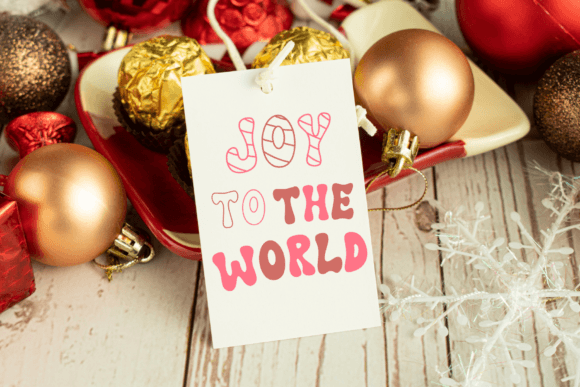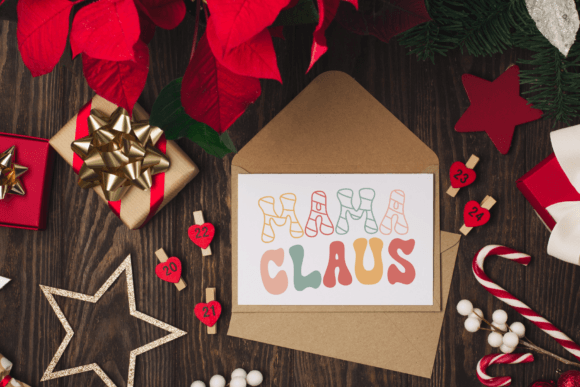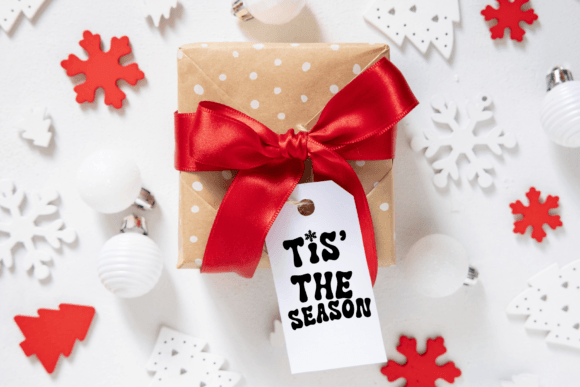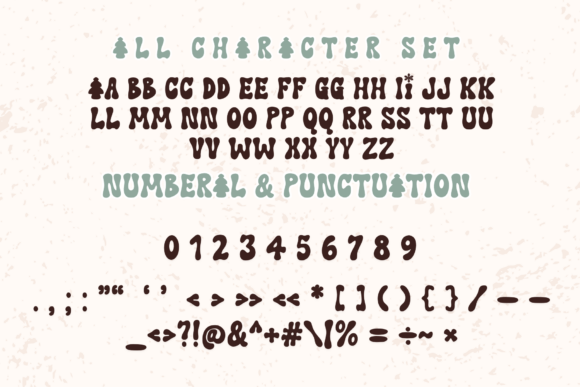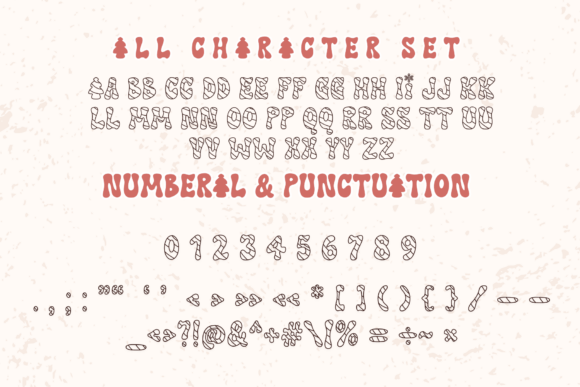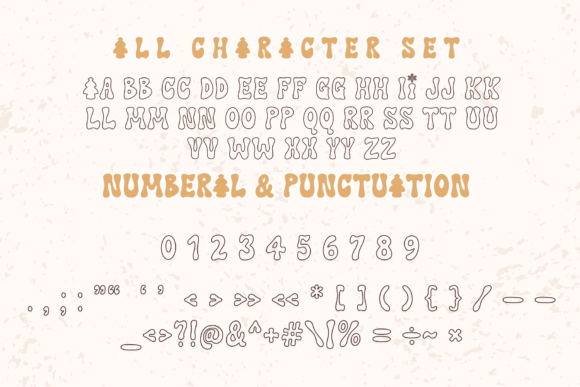
Unleash Your Festive Spirit with Christmas Journey Font
As the holiday season approaches, designers and crafters are on the lookout for the perfect font to add a touch of magic to their projects. Look no further than Christmas Journey, a delightful three-in-one font that oozes charm and genuineness. This festive font is the ideal companion for crafting heartwarming invitations, delightful greetings cards, meticulous planners, memorable photo albums, and enchanting decorations.
The Charm of Christmas Journey Font
Christmas Journey is more than just a font – it’s an experience. Its playful characteristics are sure to flourish in your cherished projects, be they energetic blog posts, eye-catching logos, distinctive branding, or persuasive ads. With Christmas Journey, you can add a dash of festive flair to your designs and make them truly unforgettable.
A Three-in-One Font for Endless Possibilities
One of the most exciting features of Christmas Journey is that it’s a three-in-one font. This means you get not one, not two, but three unique fonts in one, giving you endless possibilities for creative expression. Whether you’re designing for digital or print, Christmas Journey has got you covered.
Christmas Journey is a dream come true for designers and crafters. Its versatility makes it perfect for a wide range of projects, from:
- Energetic blog posts that capture the spirit of the season
- Eye-catching logos that make your brand stand out
- Distinctive branding that sets you apart from the crowd
- Persuasive ads that drive results
- Heartwarming invitations that make your guests feel special
- Delightful greetings cards that spread cheer
- Meticulous planners that help you stay organized
- Memorable photo albums that tell a story
- Enchanting decorations that bring your space to life
Why Choose Christmas Journey Font?
So why choose Christmas Journey font for your next project? Here are just a few reasons:
- Unique and playful design: Christmas Journey is unlike any other font out there. Its playful characteristics are sure to add a touch of magic to your designs.
- Versatile: With three unique fonts in one, Christmas Journey is perfect for a wide range of projects and applications.
- Easy to use: Whether you’re a seasoned designer or a crafting newbie, Christmas Journey is easy to use and integrate into your projects.
- Transforms your designs: Christmas Journey has the power to transform your designs and take them to the next level.
Infuse Your Designs with the Magic of Christmas Journey
So how can you infuse your designs with the magic of Christmas Journey? It’s simple:
Christmas Journey font is the perfect companion for designers and crafters looking to add a touch of festive magic to their projects. With its playful characteristics, versatility, and ease of use, Christmas Journey is sure to transform your designs and take them to the next level. So why wait? Unleash your festive spirit with Christmas Journey font and watch your designs come to life.
Experience the Allure of Christmas Journey